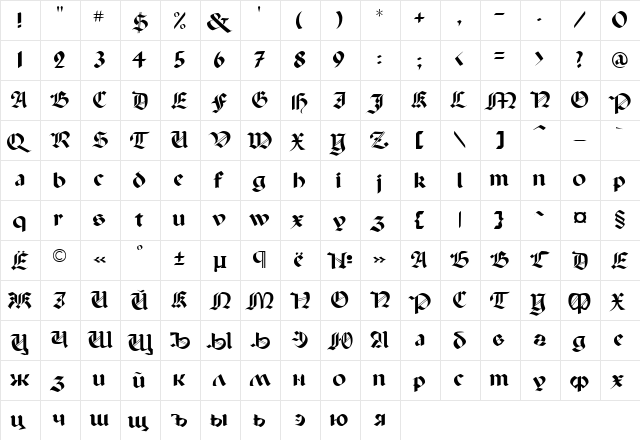
PaladinPCRus Medium
Design Context for PaladinPCRus Typeface
PaladinPCRus is a composed and adaptable typeface that performs quietly and consistently across a wide range of design contexts.